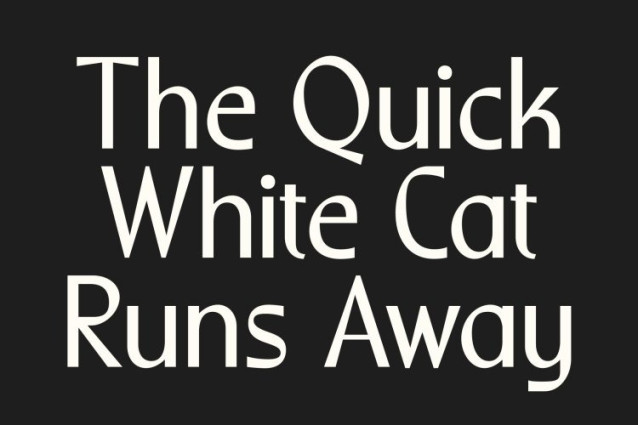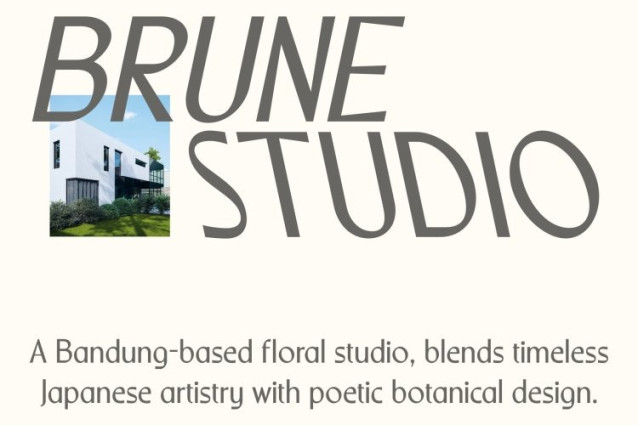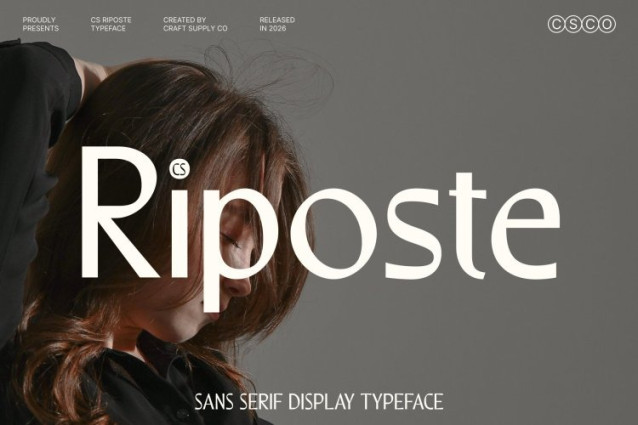
CS Riposte Font
CS Riposte Font This is a modern sans serif font crafted with a clean and fresh design approach. Its well-balanced structure and refined proportions create a professional appearance that feels polished without being stiff or overly formal. Designed to feel modern, aesthetic, and stylish, this font delivers clarity and confidence across a wide range of visual applications.
Clean Letterforms with Fresh Appeal
The letterforms of this font are built on simplicity and precision. Smooth lines, consistent stroke weight, and thoughtful spacing ensure strong readability while maintaining a light and contemporary feel. This clean construction allows the font to adapt easily to different layouts, making it visually appealing without distracting from the message.
Professional Tone with Stylish Flexibility
This font strikes a perfect balance between professionalism and creativity. Its modern design communicates credibility and sophistication while retaining a relaxed, approachable character. This flexibility makes it ideal for designers who want a font that feels refined yet expressive, supporting both structured and experimental layouts with ease.
Ideal for Branding, Editorials, and Creative Projects
Designed for versatile modern use, this font is ideal for branding, posters, editorial layouts, and creative projects that aim to appear stylish and sophisticated. Its clean sans serif form works beautifully for modern brands, magazines, promotional visuals, and digital content.